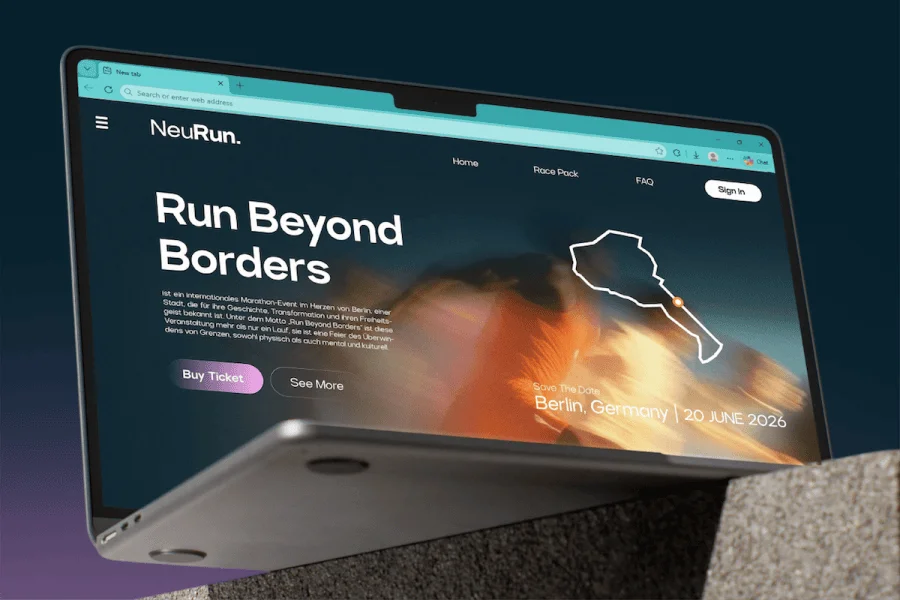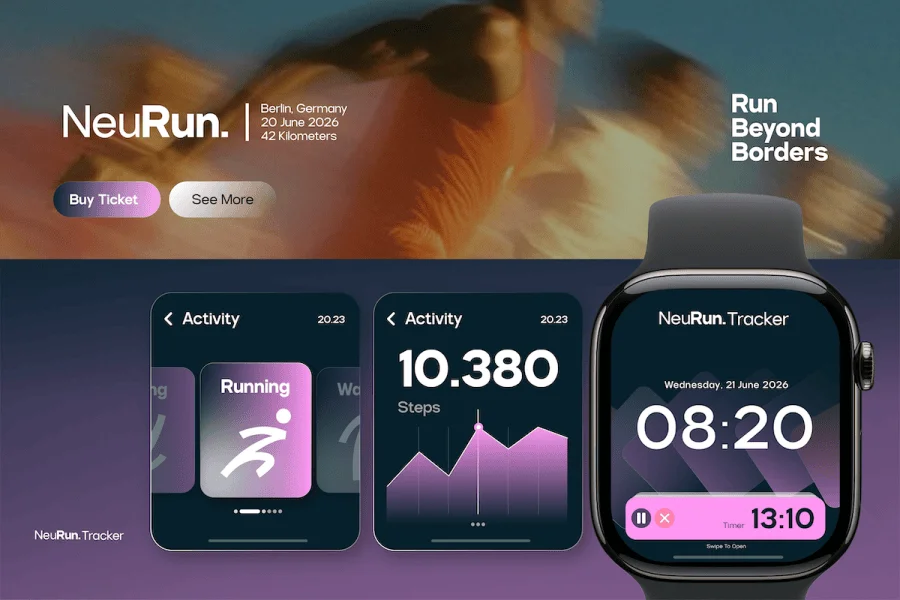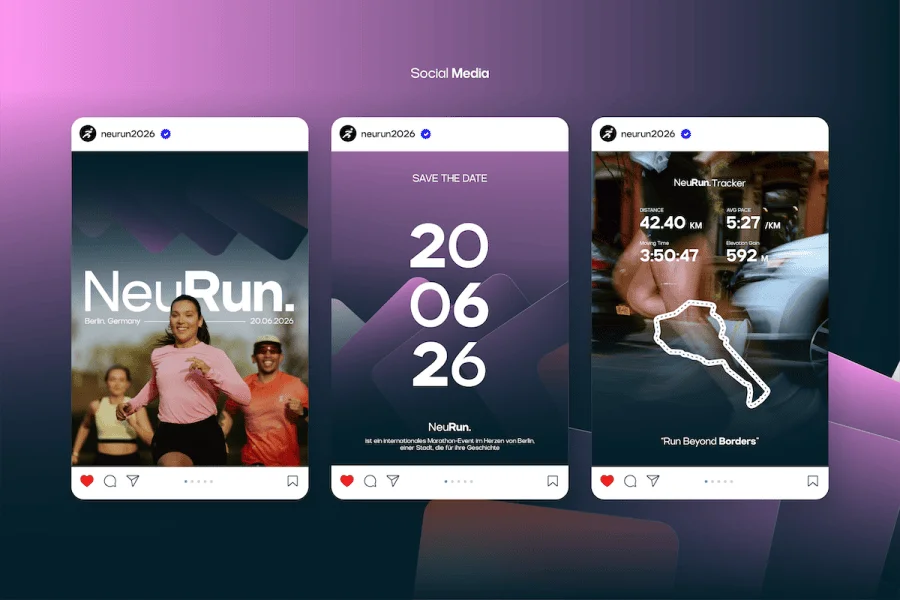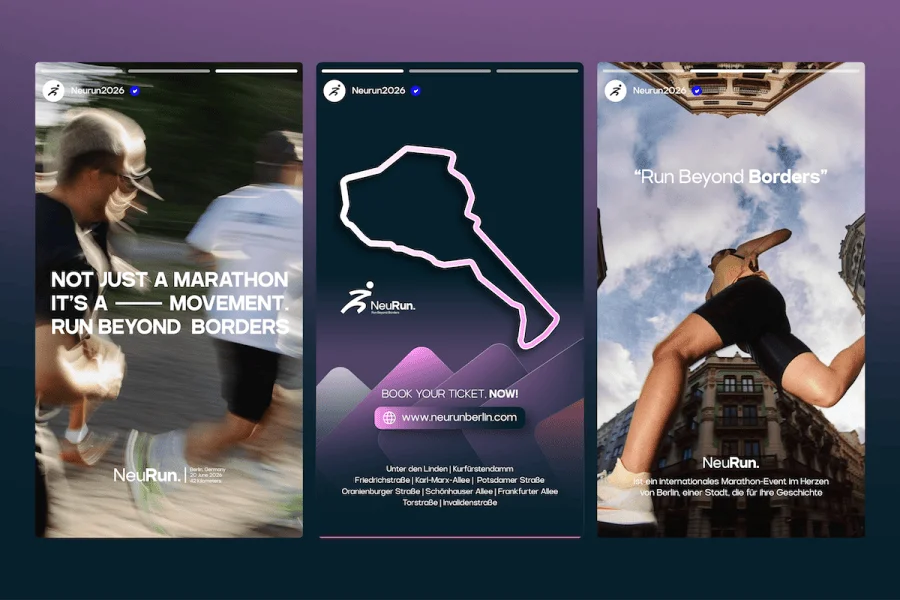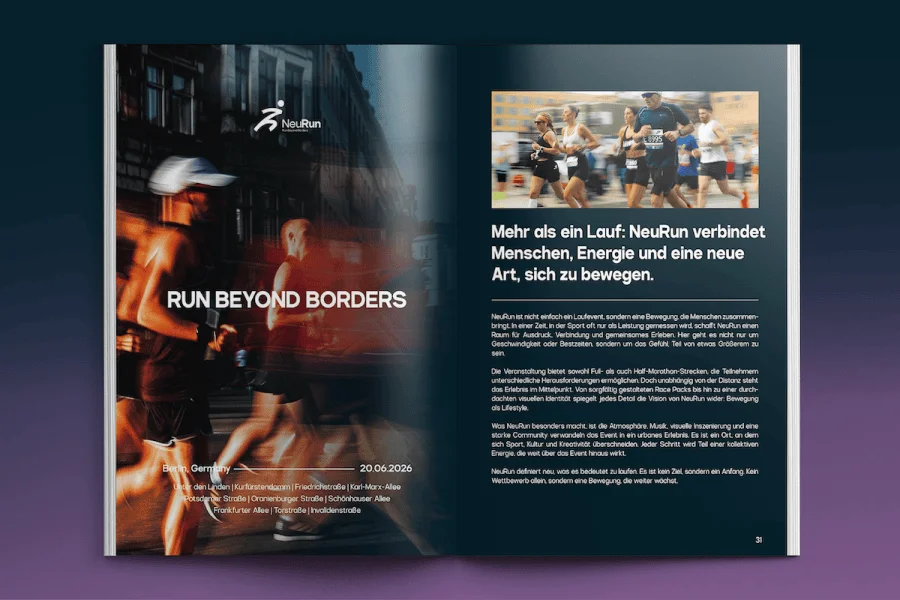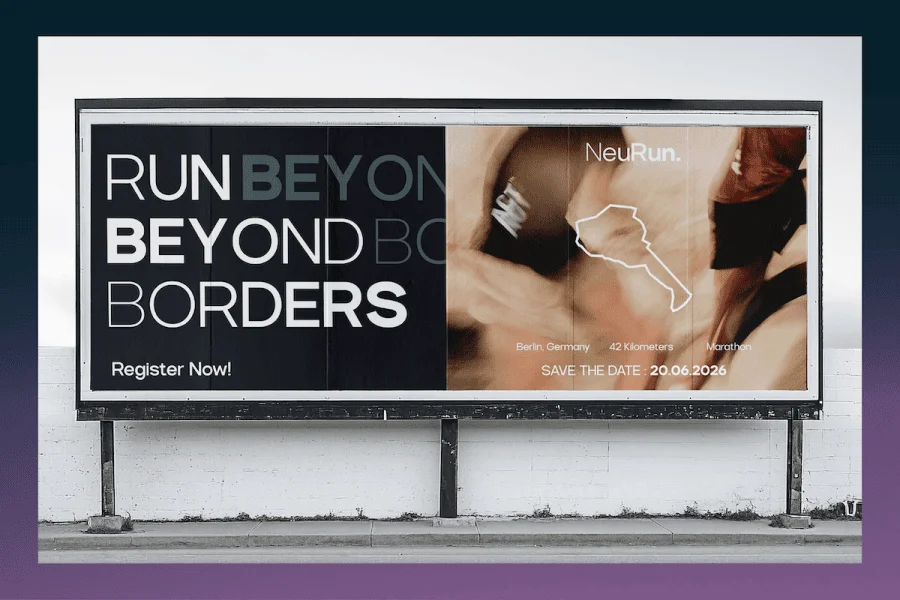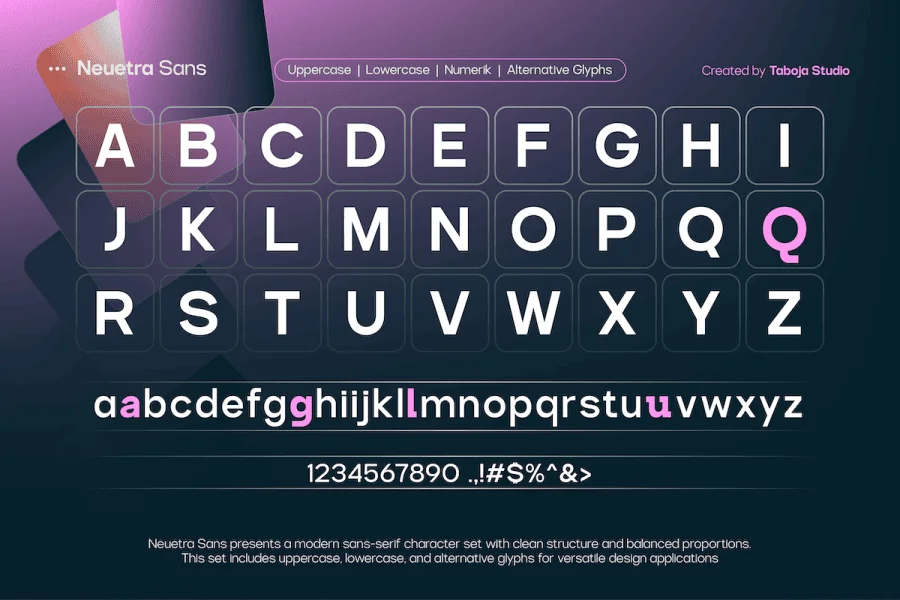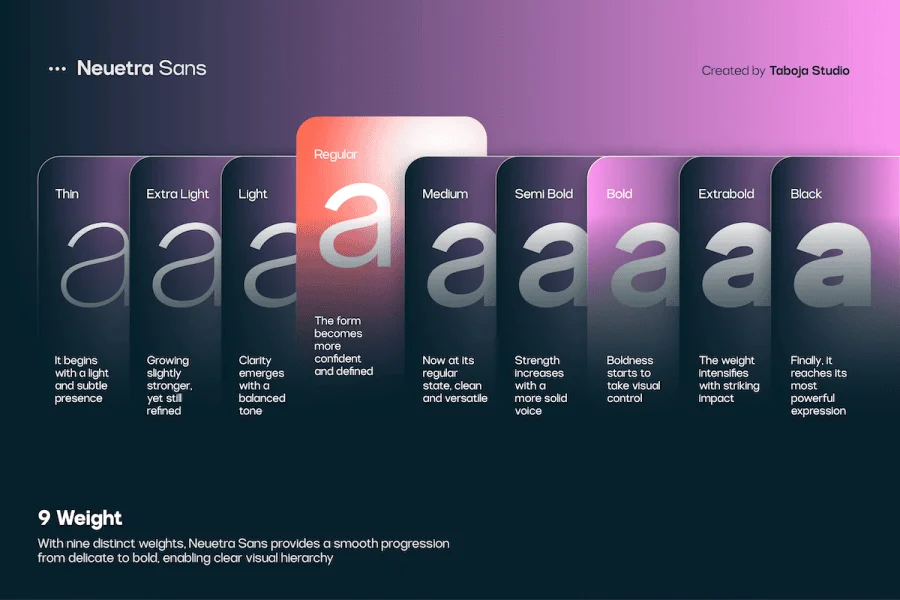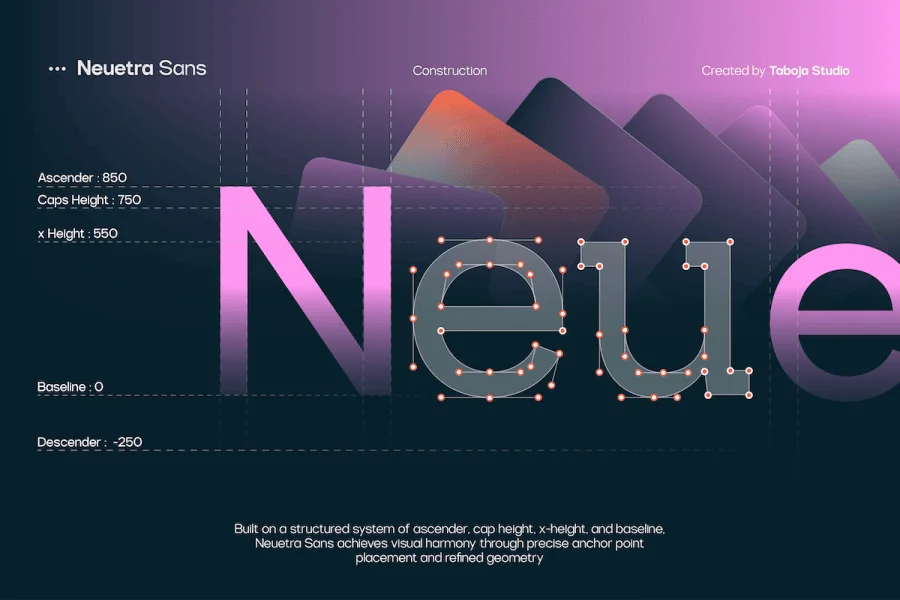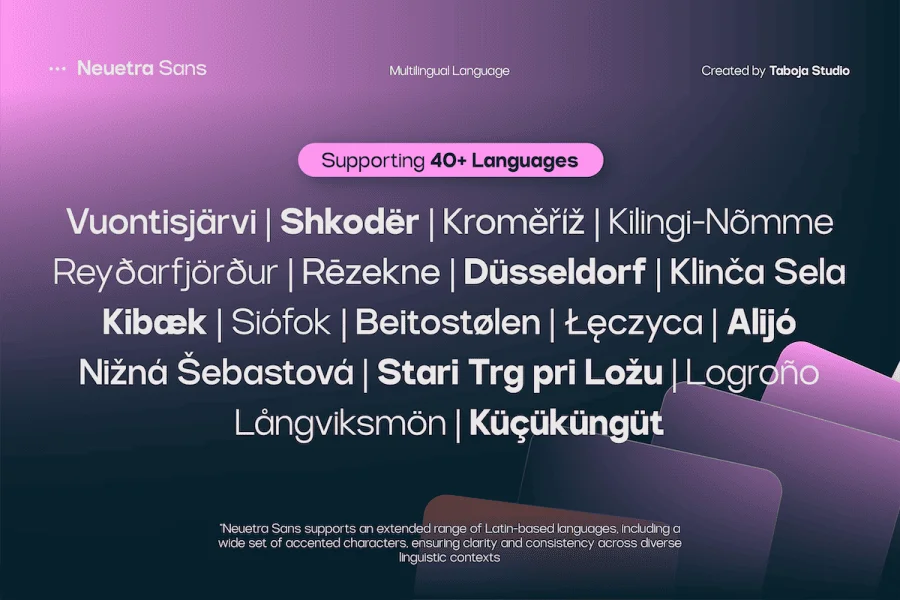
TBJ Neuetra is a grotesk sans serif drawn from a Neuetral base with humanist details. It doesn't push for attention — it earns it through consistency. The result is a typeface that feels familiar without being generic, and restrained without being stiff.